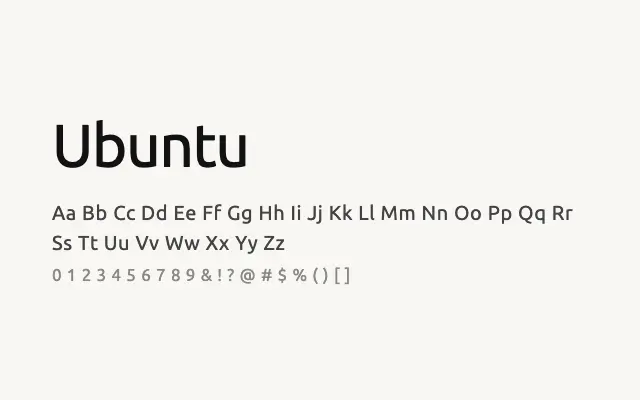
Ubuntu
Ubuntu is a warm humanist sans-serif designed for screen use, with excellent multilingual coverage and a distinctly approachable character.
Originally commissioned by Canonical for the Ubuntu operating system, it prioritises legibility at small sizes while retaining enough personality to serve in branding and editorial contexts. Its open apertures and gently rounded details give it a friendlier tone than neutral grotesques, distinguishing it from colder system faces. It works reliably across body text, UI, and light headline use.
A humanist sans-serif with open apertures, slightly rounded terminals, and letterforms that balance warmth with screen legibility. Designed with strong multilingual support across Latin, Cyrillic, and Greek scripts.